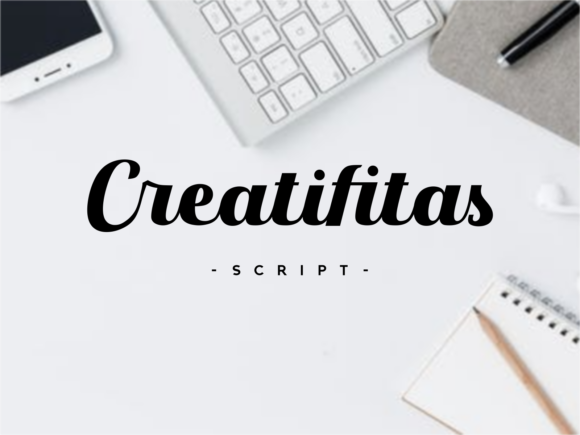
Unleash Your Creativity with the Enchanting Creatifitas Font
Have you ever been in the midst of a creative project, and suddenly, a single font choice can make all the difference? It’s that moment when the words flow effortlessly, and the design comes together in perfect harmony. For many designers, that moment is what makes all the hard work worth it.
Introducing the exquisite Creatifitas Font, a beautifully crafted handwritten typeface that will transport your designs to a world of elegance and sophistication. With its delicate swashes and charming flair, this font is perfect for adding a touch of whimsy to your crafty ideas, from letterheads and titles to stationery and beyond. The Creatifitas Font is a valuable addition to any designer’s toolkit, offering a unique and eye-catching way to express their creativity.
Creatifitas Font Key Features
- Unique Characteristics: The font features a unique blend of modern and artistic elements, with intricate details and ornaments that set it apart from other fonts.
Creatifitas Font Review
I recently had the chance to work with the Creatifitas Font, and I must say it’s a unique addition to any design project. Here’s what I think works well: ✨
- The Creatifitas Font has a very distinctive, hand-painted look that can add a touch of personality to your designs.
- The font is highly customizable, allowing you to adjust the weight, size, and spacing to fit your specific needs.
- It’s a great choice for titles, headings, and other elements where you want to make a statement.
However, there are a few limitations to keep in mind: ⚠️
- The font may not be the best choice for body text, as it can be quite difficult to read in certain sizes or styles.
- The customizability can also be a double-edged sword – while it’s great for flexibility, it can be overwhelming to adjust all the different settings.
- The font may not be suitable for all languages or character sets, due to its unique design.
Overall, I think the Creatifitas Font is a great choice for designers who want to add some personality to their projects. While it may have some limitations, it’s definitely worth considering for the right project.
Use the Creatifitas Font in combination with other creative fonts to create visually appealing designs.
Experiment with different font sizes and styles to create a unique visual hierarchy.
Use the font in conjunction with bold and italic styles to add emphasis to your text.
Use the Creatifitas Font for creative projects such as:
Graphic design
Typography-based art
Alternatives to Creatifitas Font
The Great Vibes Font is a beautiful, handwritten font that is perfect for creating a warm and inviting atmosphere. It’s ideal for use in headings, titles, and quotes, and works well in a variety of design projects.
Compared to Creatifitas Font, Great Vibes has a more fluid and cursive feel, making it suitable for projects that require a more relaxed tone.
The Carolyna Pro Font is a modern, elegant font that is perfect for creating a sophisticated and luxurious atmosphere. It’s ideal for use in branding, packaging, and editorial design projects.
Compared to Creatifitas Font, Carolyna Pro has a more refined and polished feel, making it suitable for projects that require a high level of professionalism.
The Alex Brush Font is a beautiful, handwritten font that is perfect for creating a personal and emotional connection with your audience. It’s ideal for use in headings, titles, and quotes, and works well in a variety of design projects.